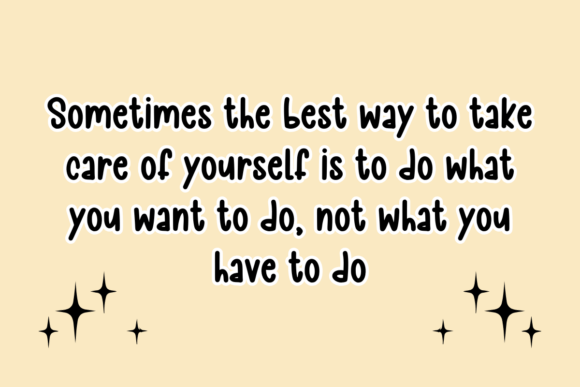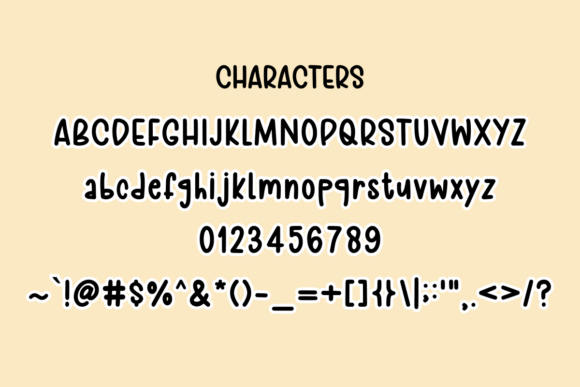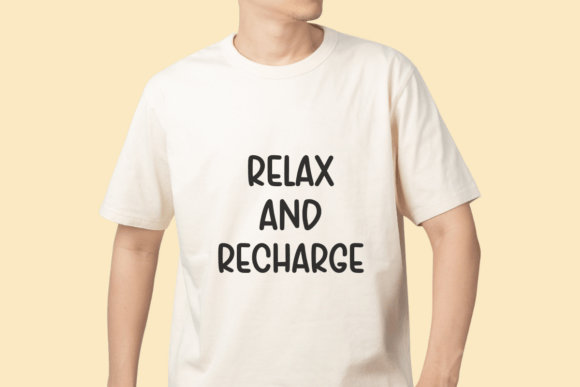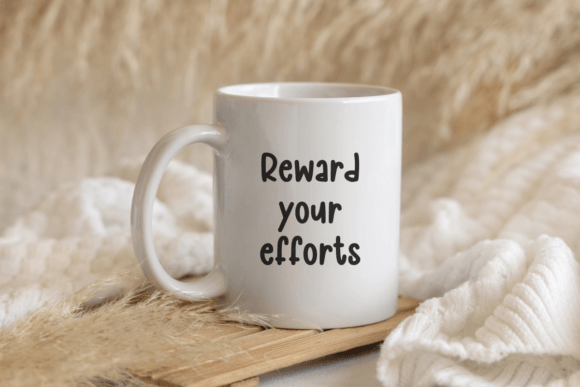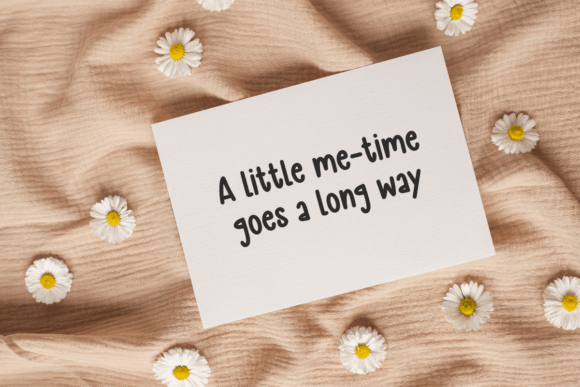
Cocoa Kisses Font: The Perfect Addition to Your Design Arsenal
Are you a designer, crafter, or DIY enthusiast looking for a playful and versatile font to elevate your projects? Look no further than the Cocoa Kisses Font! This charming sans-serif font is perfect for a wide range of applications, from personal to professional, and is sure to add a touch of whimsy to your designs.
Endless Possibilities with Cocoa Kisses Font
The Cocoa Kisses Font is an incredibly versatile font that can be used for a variety of purposes. Whether you’re creating memos, journals, notes, or planners, this font is sure to add a touch of personality to your designs. It’s also perfect for KDP interiors, greeting cards, invitations, scrapbooks, diaries, and printables. The possibilities are endless, and with this font, you can let your creativity shine!
Perfect for Educators and Planners
Teachers, daily planners, and notepad enthusiasts will love the Cocoa Kisses Font! It’s ideal for creating engaging and interactive lesson plans, worksheets, and educational materials. Add a touch of fun to your weekly and monthly planners, notebook paper, and to-do lists with this delightful font. It’s also perfect for creating calendars, workbooks, and templates that are both functional and visually appealing.
What Makes Cocoa Kisses Font So Special?
So, what sets the Cocoa Kisses Font apart from other fonts? Here are just a few reasons why it’s a must-have for designers and crafters:
- Playful and whimsical: The Cocoa Kisses Font has a fun and playful vibe that’s perfect for adding a touch of personality to your designs.
- Versatile: This font can be used for a wide range of applications, from personal to professional.
- Easy to read: The sans-serif design makes it easy to read, even at small sizes.
- High-quality: The font is professionally designed and tested to ensure it’s of the highest quality.
How to Use Cocoa Kisses Font in Your Designs
Using the Cocoa Kisses Font in your designs is easy! Here are a few tips to get you started:
- Pair it with other fonts: Experiment with pairing the Cocoa Kisses Font with other fonts to create a unique and visually appealing design.
- Use it for headings and titles: The Cocoa Kisses Font is perfect for headings and titles, adding a touch of personality to your designs.
Tips and Tricks for Getting the Most Out of Cocoa Kisses Font
Here are a few more tips and tricks for getting the most out of the Cocoa Kisses Font:
- Experiment with colors: Try pairing the Cocoa Kisses Font with different colors to create a unique and eye-catching design.
- Use it for branding: The Cocoa Kisses Font can be used for branding, adding a touch of personality to your business or personal brand.
- Try it with graphics: The Cocoa Kisses Font pairs well with graphics and illustrations, adding a touch of whimsy to your designs.